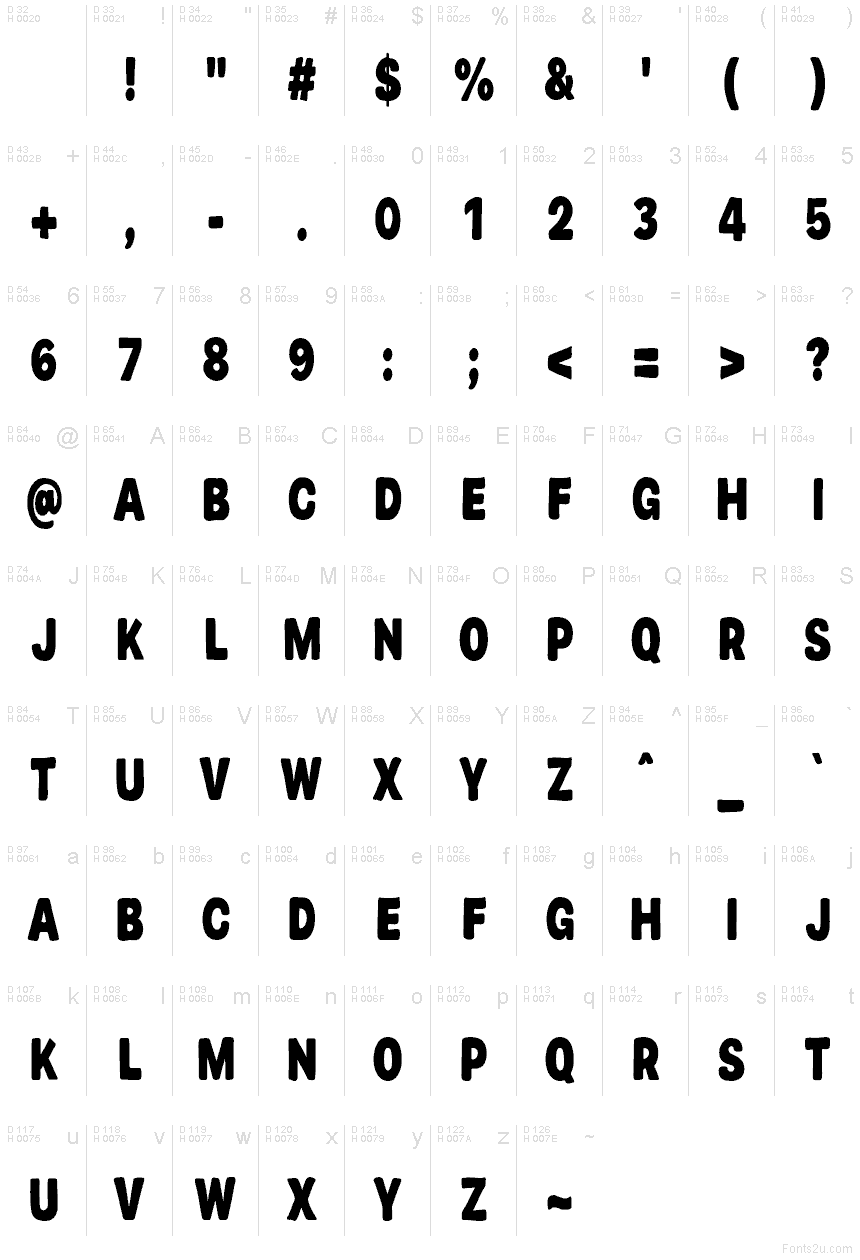
Persona Aura
Persona Aura font by MJType is a bold, condensed display typeface with a comic style, characterized by its expressive character and strong presence. The striking appearance of the letters makes them unmissable wherever they are featured while the comic style adds humor and an interesting human touch to the visual design.
Free for use in all types of projects, this font achieves high impact in both vintage-inspired designs and modern applications such as branding interiors. Write posters, magazines, newspaper headlines in Persona Aura or use it to develop resources used by SNS pages like covers and thumbnails.